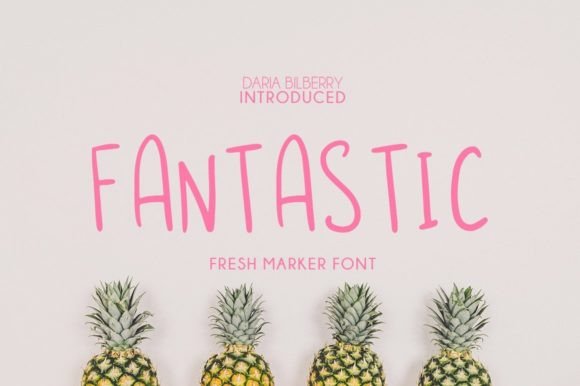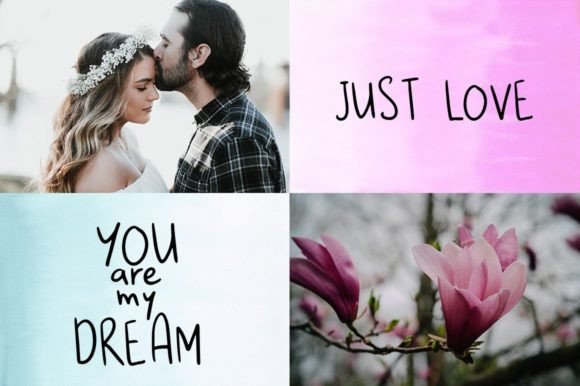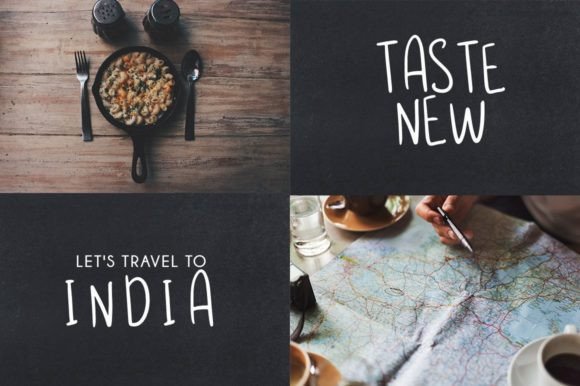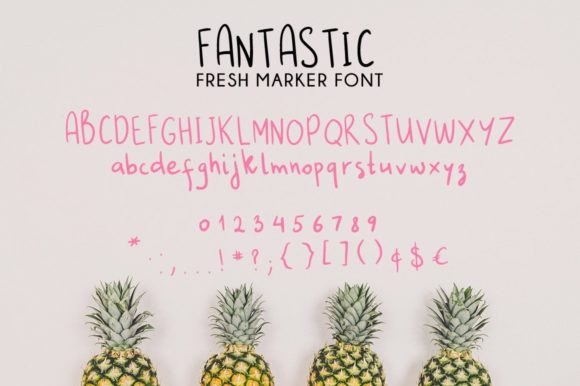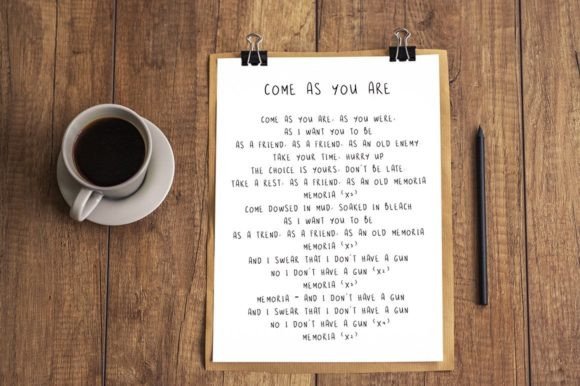
About Fantastic Font
**Fantastic** is a font that embodies simplicity and cleanliness, making it a versatile choice for a wide range of creative projects. Its masterful design elevates it to the status of a favorite, capable of enhancing each of your creative ideas to the highest level. By incorporating Fantastic into your designs, you can achieve a modern and polished look, ensuring your projects stand out with elegance and clarity.
One of the standout features of Fantastic is its simplicity. The font’s clean and straightforward letterforms create a minimalist and uncluttered appearance, making it suitable for a variety of design applications. Whether used in branding, packaging, posters, websites, or social media graphics, Fantastic provides a clear and legible typographic solution. Its simplicity ensures that your message takes center stage, allowing the content of your designs to shine without distraction.
Fantastic’s clean handwritten style adds a touch of authenticity and approachability to your projects. While maintaining a polished look, the font retains a human touch, making it relatable and engaging to the audience. This balance between cleanliness and authenticity makes Fantastic ideal for conveying professionalism while also infusing a sense of warmth and personality into your designs.
The font’s versatility allows it to complement various design elements, enabling seamless integration into different contexts. Whether combined with bold imagery, vibrant colors, or subtle textures, Fantastic adapts effortlessly, enhancing the overall visual impact of your projects. Its neutral and timeless appearance makes it suitable for both contemporary and classic design styles, ensuring its relevance across different trends and aesthetics.
In summary, Fantastic is a simple and clean handwritten font that possesses the ability to elevate your creative ideas to a new level of sophistication. Its minimalist design, coupled with a touch of authenticity, makes it a valuable asset for designers seeking a versatile and elegant typographic solution. By incorporating Fantastic into your designs, you can achieve a harmonious balance between simplicity and character, ensuring your projects exude a fantastic and timeless appeal.